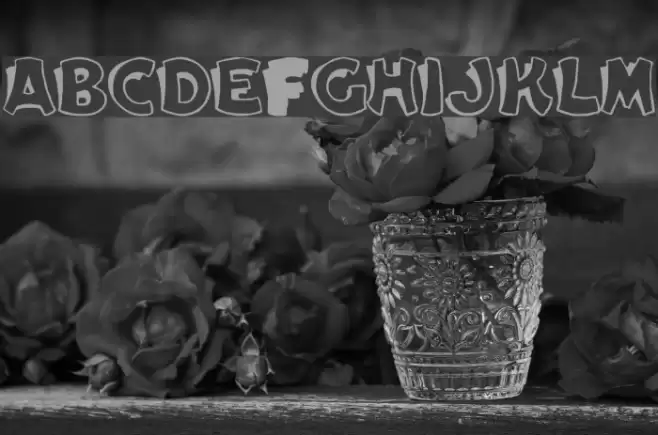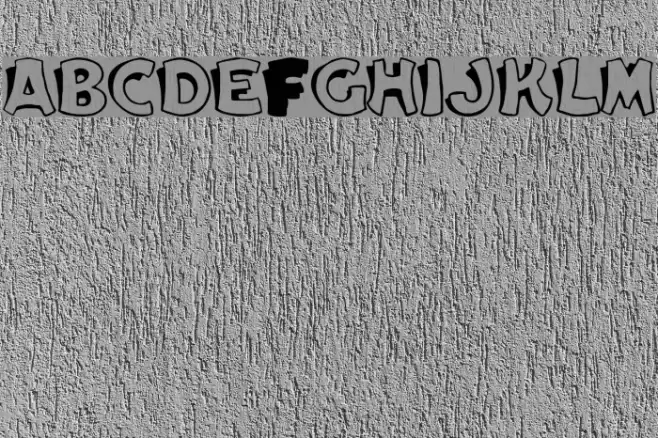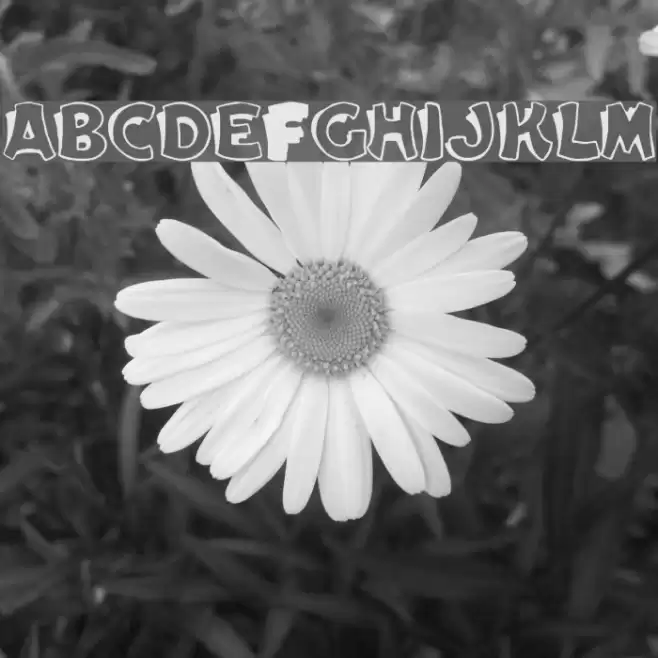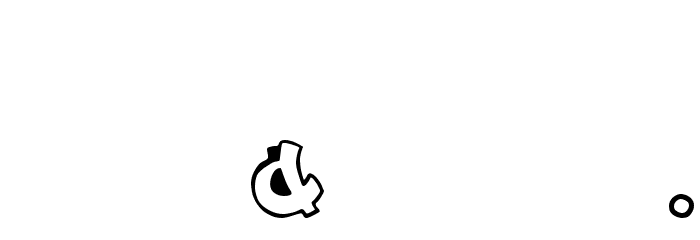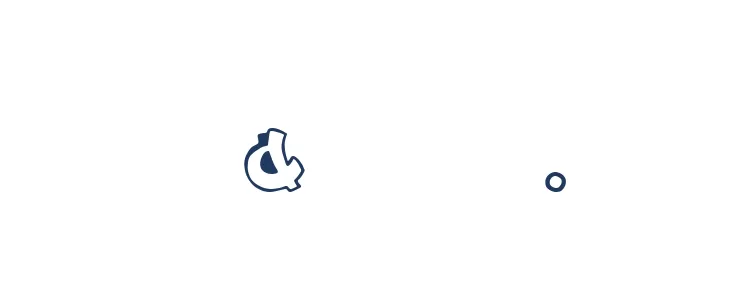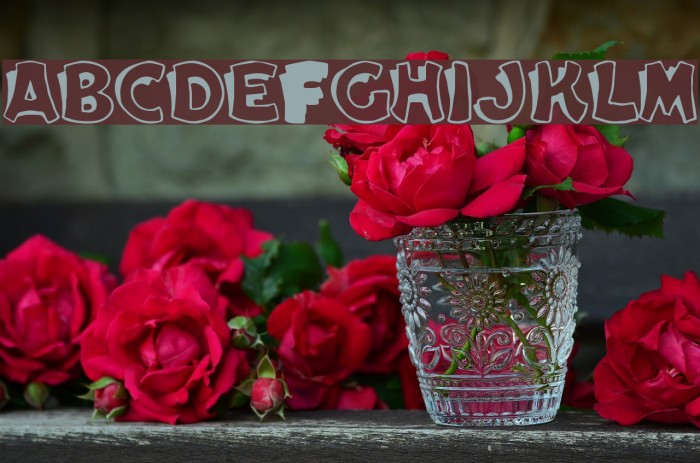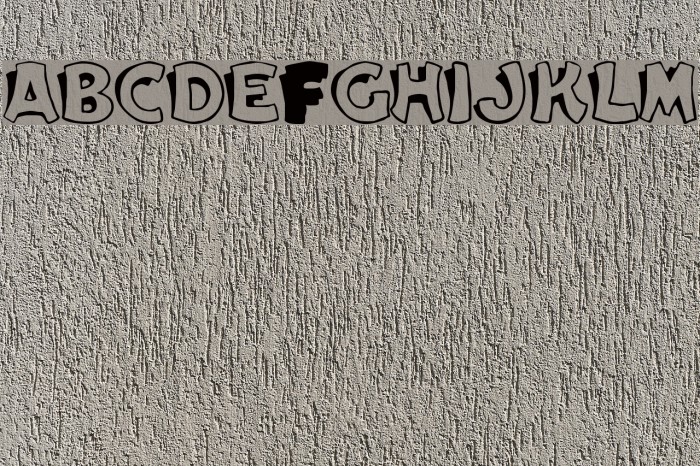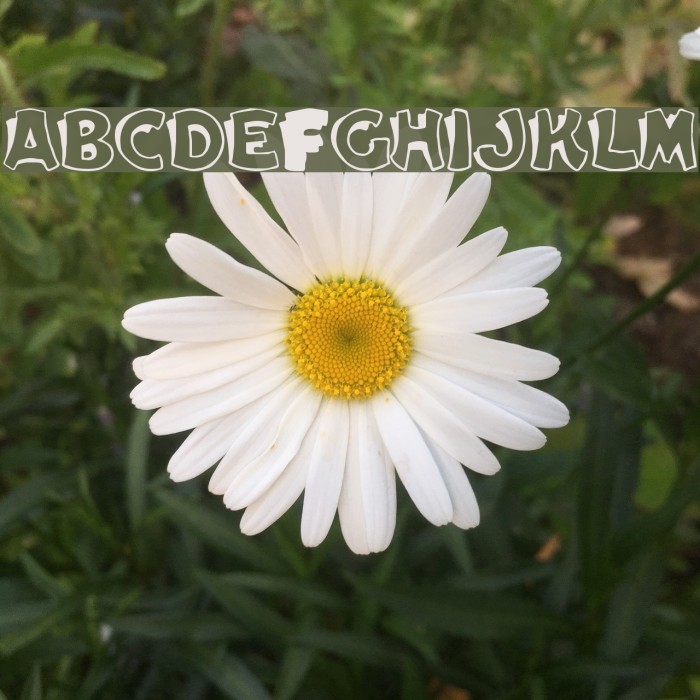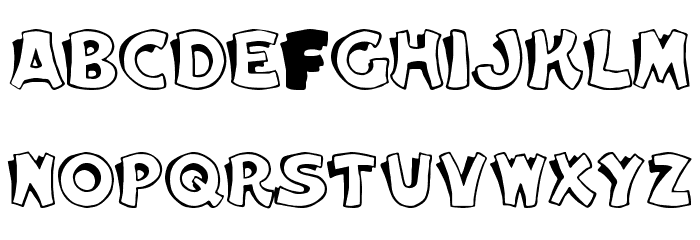
Elwood Regular Font
Elwood Regular Description
This font features a playful and bold design with a cartoonish flair. The letters are outlined with a thick black border, giving them a three-dimensional appearance. The interior of each character is filled with a solid white color, creating a striking contrast against the outline. The style is reminiscent of comic book lettering, with exaggerated curves and angles that add to its whimsical nature. The font is highly legible and eye-catching, making it suitable for designs that require a fun and engaging look. The uppercase and lowercase letters maintain a consistent style, while the numbers and special characters complement the overall aesthetic.
A playful, bold font with a cartoonish, outlined style from Outline fonts.
- Proposed Projects: Ideal for comic books, children's books, playful branding, and posters.
- Overall Style: Playful, Cartoonish